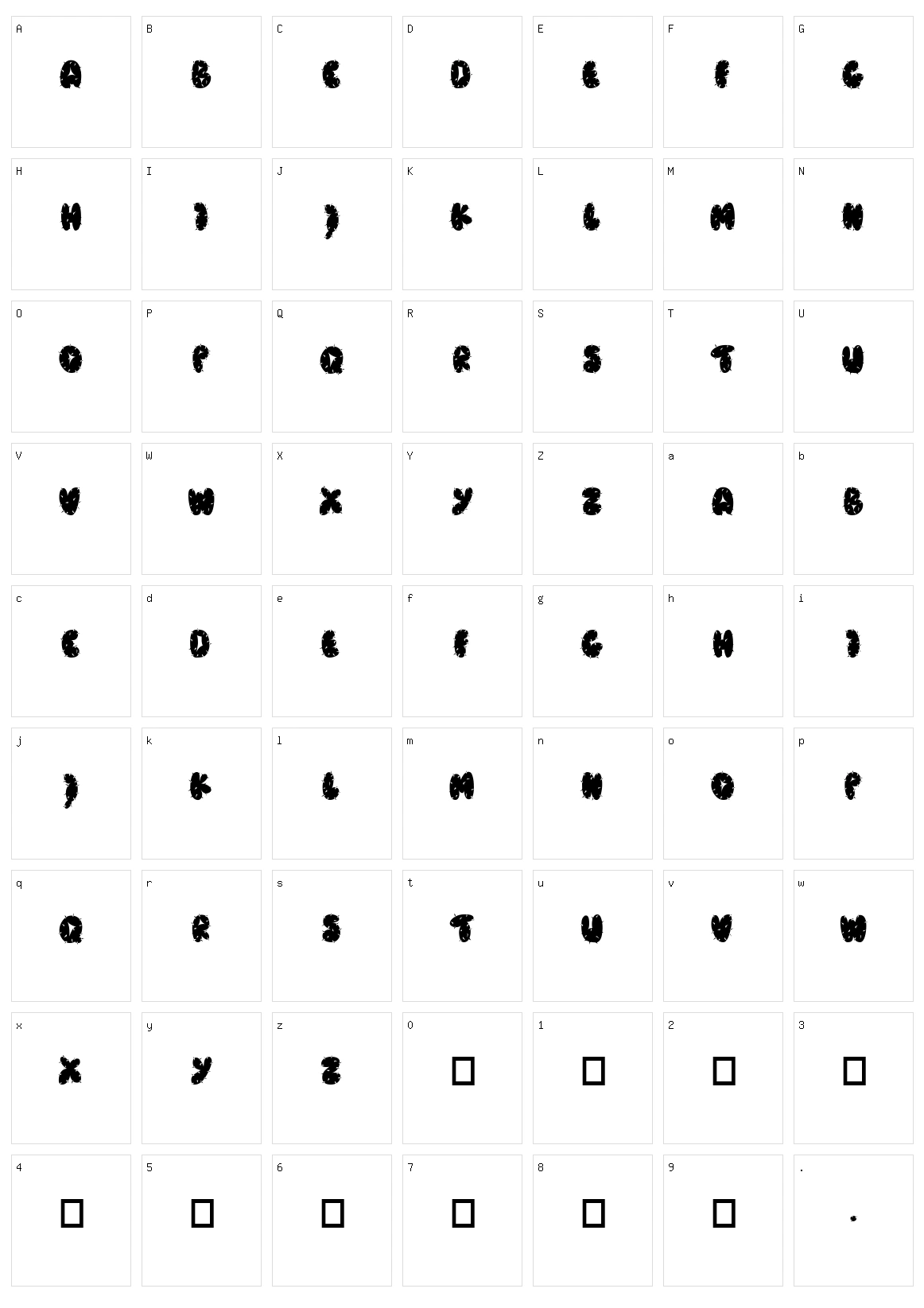
The free font Caramba is carefully designed by Uli Germany, showcasing a thoughtful balance of creativity and usability and falls under the Mexican font style. When you download the ZIP file, it contains only 14.23 KB of font files, making it lightweight and quick to download. Please review the license details below to understand permitted usage and distribution rights. If license information is not available, we recommend using this font for personal projects only or contacting the author directly for commercial usage permissions.